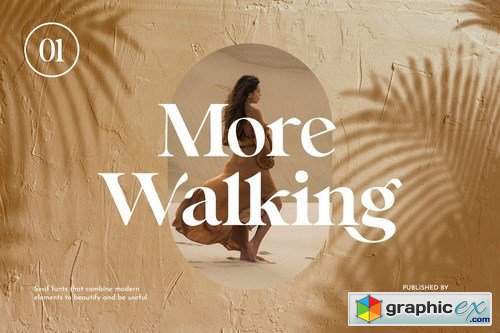
Voltaire Frangela Serif Font
Voltaire Frangela is Serif Font and also has vintage display font. Can make it easier to convey the message in your design. Use for awesome display, labeling, clothing, movie sceen, poster, movie title, gigs, album covers, logos, and much more. It's also could be good for both fun and semi-formal text.